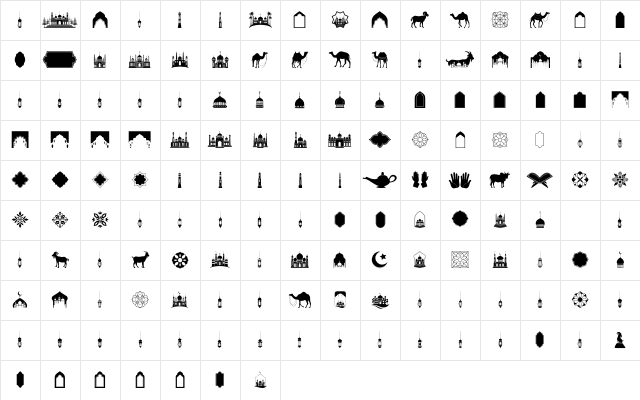
Complete bahlull dingbats Regular glyph index. Displaying only characters natively supported by bahlull dingbats Regular font.
bahlull dingbats is a composed and adaptable typeface that performs quietly and consistently across a wide range of design contexts.